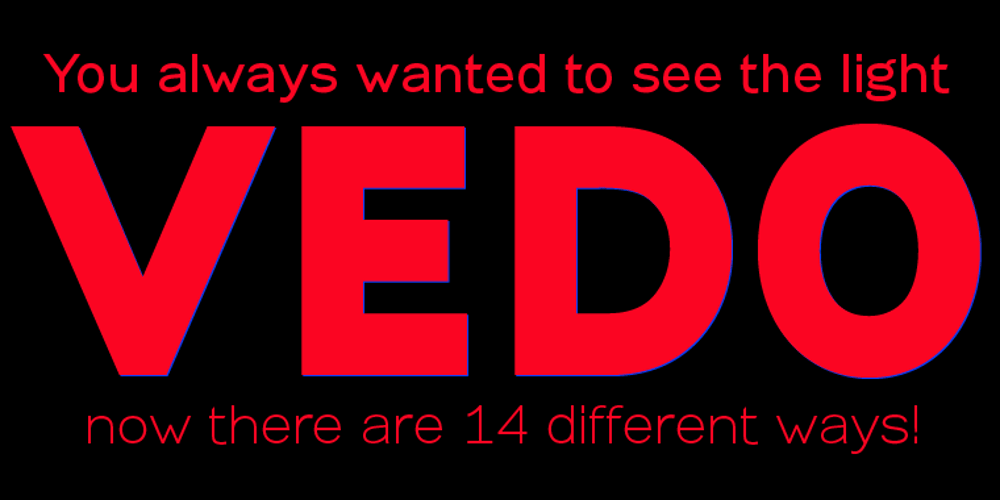
Vedo
Vedo font
Vedo Font Family was designed by Gert Wiescher and published by Wiescher Design. Vedo contains 14 styles and family package options. The name Vedo is derived from the Latin word for “I see”. Vedo is a new, sturdy Sans Monoline in 7 weights and 7 Italic cuts. The Thin cuts are free of charge. Yours designing new fonts in the Bauhaus tradition – Gert Wiescher